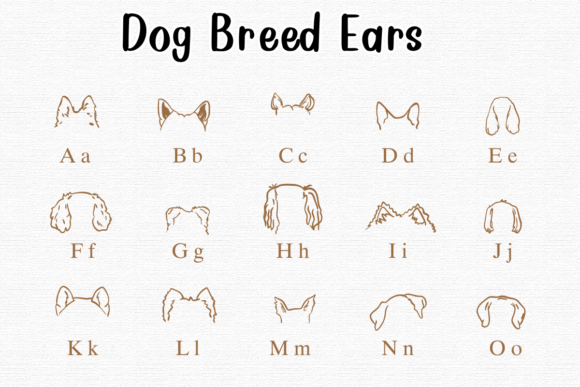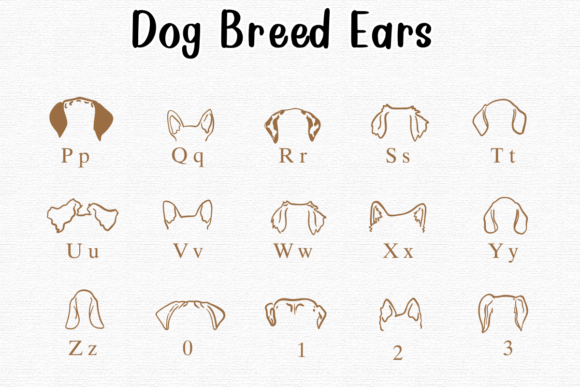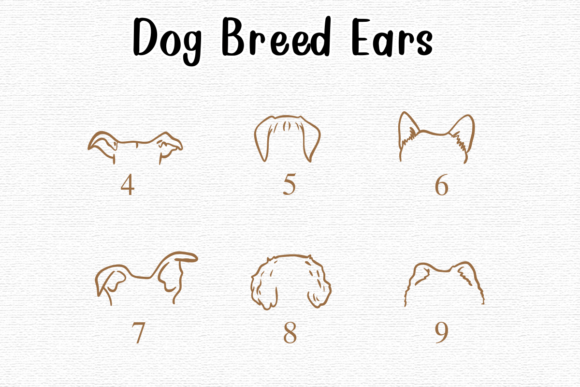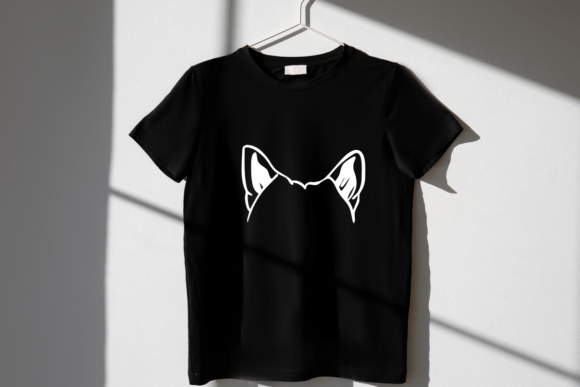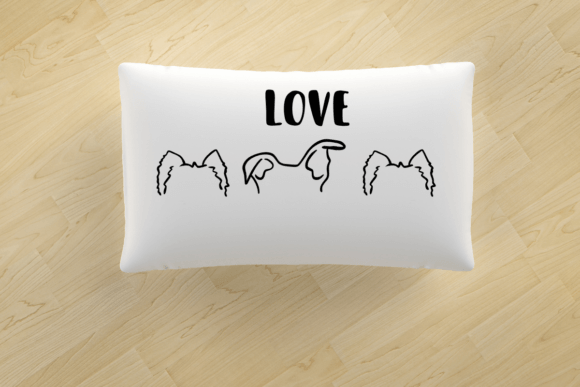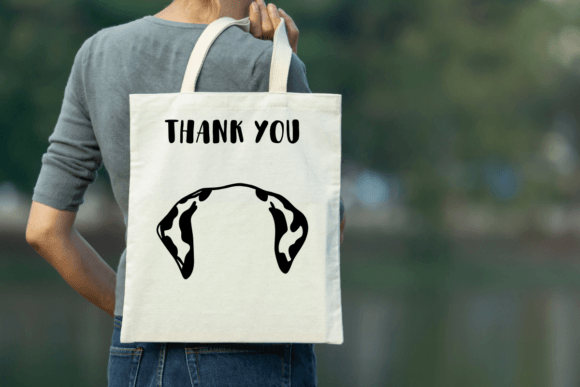
Unleash the Cuteness: Dog Breed Ears Font for Designers and Crafters
Are you a dog lover looking for a unique way to add a playful touch to your designs? Or perhaps you’re a designer or crafter seeking a fun and creative font to make your projects stand out? Look no further than the Dog Breed Ears Font, a special dingbat font featuring an adorable collection of cute dog ears!
What is Dog Breed Ears Font?
Dog Breed Ears Font is a one-of-a-kind dingbat font that showcases a variety of dog ear designs, each assigned to a different character. This means that every time you type a character, you’ll get a new and exciting dog ear design to add to your project. With its extensive range of ear designs, this font is perfect for creating engaging and visually appealing content that dog lovers of all ages will adore.
Paw-fect for Playful Designs
Whether you’re designing a greeting card, crafting a DIY project, or creating social media graphics, Dog Breed Ears Font is sure to bring a smile to people’s faces. The font’s playful and whimsical nature makes it ideal for:
• Dog-themed designs, such as pet store promotions, dog adoption campaigns, or dog birthday cards
• Crafting projects, like scrapbooking, card making, or DIY decorations
• Social media graphics, including Facebook posts, Instagram stories, or Twitter headers
• Web design elements, such as icons, buttons, or animations
Key Features of Dog Breed Ears Font
Here are some exciting features that make Dog Breed Ears Font a must-have for designers and crafters:
• Unique Character Set: Each character in the font features a distinct dog ear design, ensuring that your projects will be filled with variety and visual interest.
• Scalable: The font is highly scalable, allowing you to use it for both small and large design projects.
Tips for Using Dog Breed Ears Font
To get the most out of Dog Breed Ears Font, here are some creative tips to keep in mind:
• Mix and Match: Combine different dog ear designs to create a unique and playful look.
• Experiment with Colors: Try pairing the font with bright, bold colors to add an extra layer of fun to your designs.
• Use as a Accent Font: Use Dog Breed Ears Font as an accent font to add visual interest to your designs.
• Get Creative with Typography: Use the font to create engaging typography, such as dog ear-shaped quotes or phrases.
Dog Breed Ears Font is a delightful dingbat font that’s sure to bring a touch of whimsy and fun to your designs. With its extensive range of cute dog ear designs, ease of use, and commercial licensing, this font is perfect for designers, crafters, and dog lovers alike. So why wait? Download Dog Breed Ears Font today and start creating playful, engaging designs that are sure to make tails wag!
Q: What type of font is Dog Breed Ears Font?
A: Dog Breed Ears Font is a dingbat font featuring cute dog ear designs.